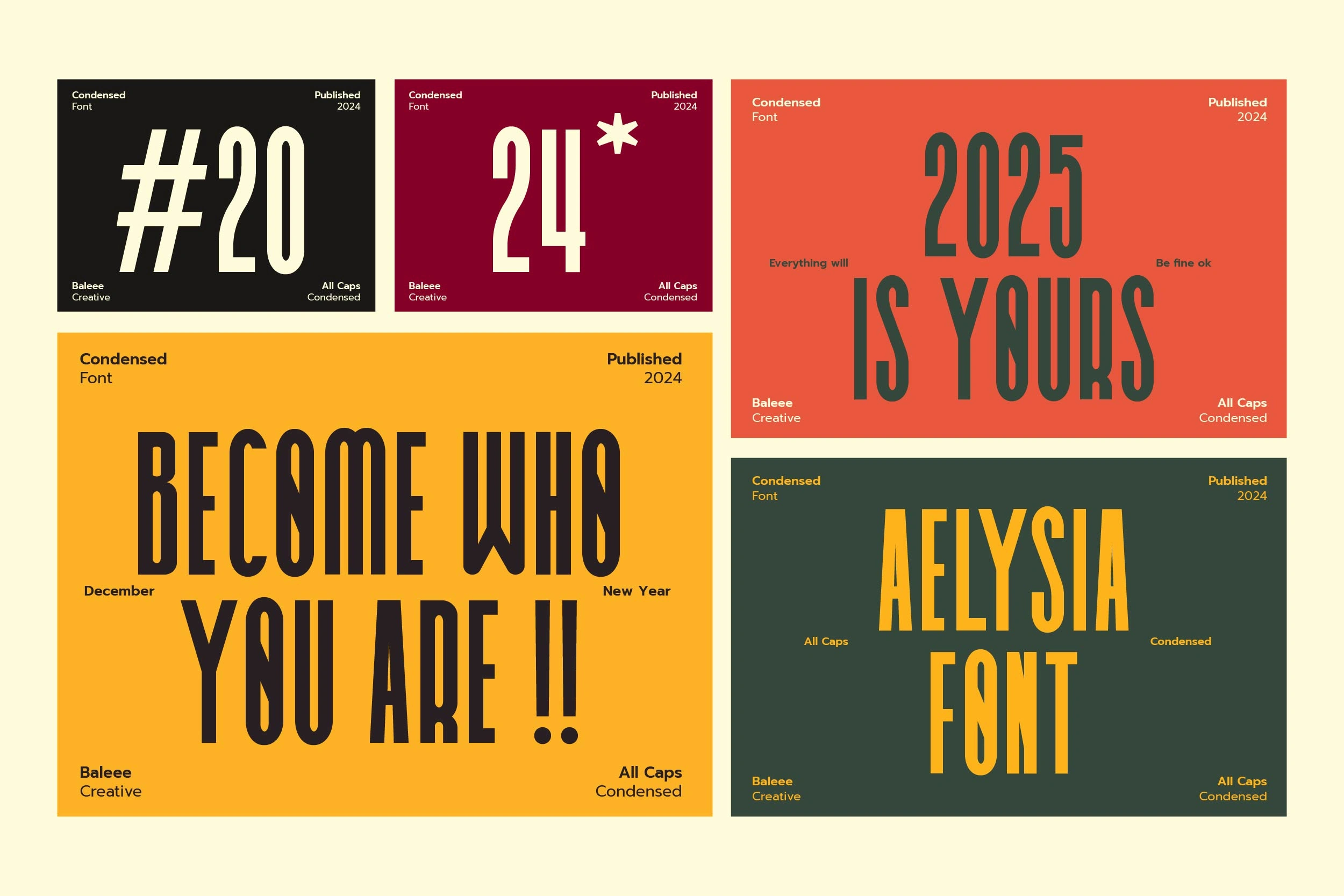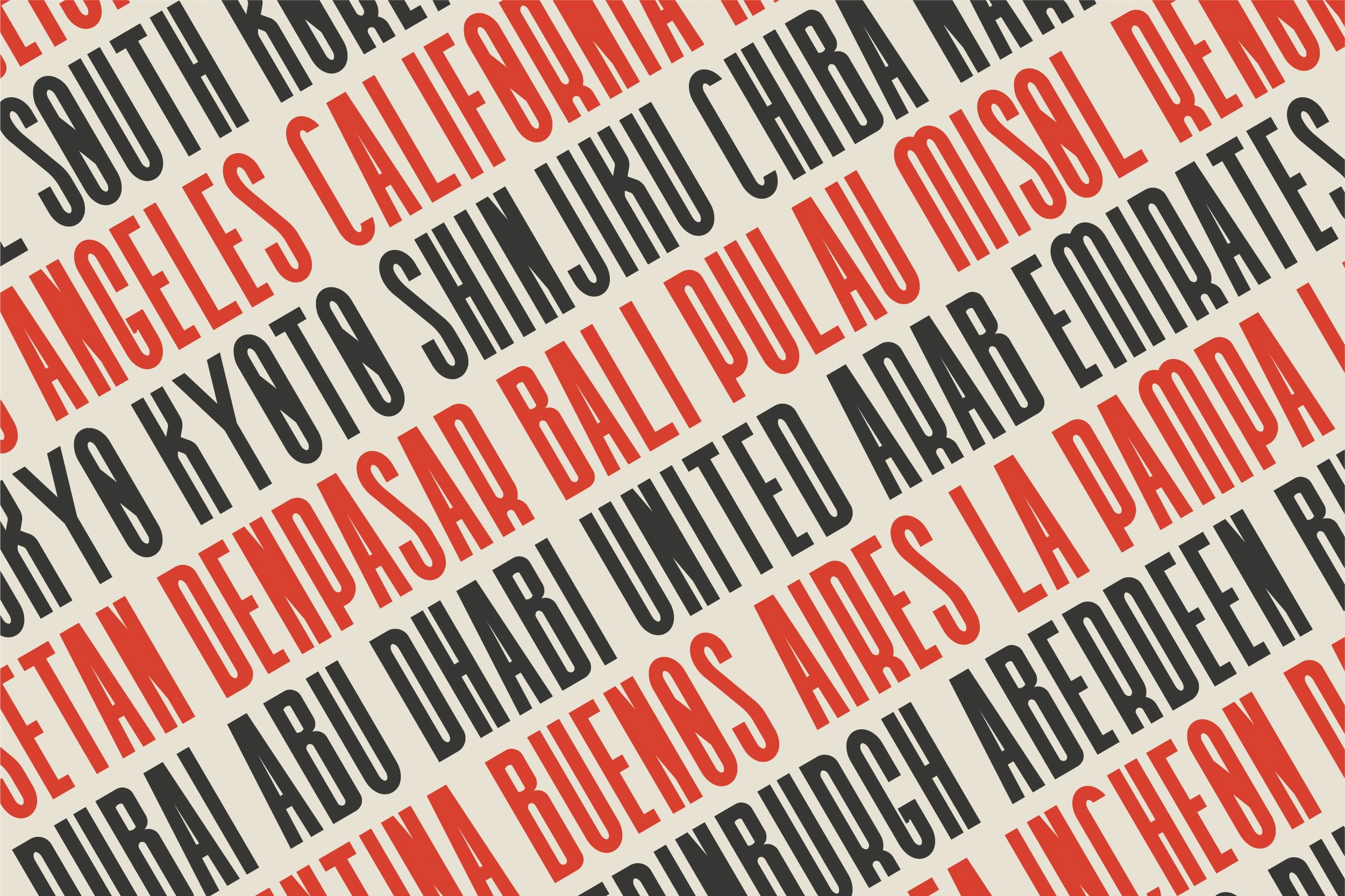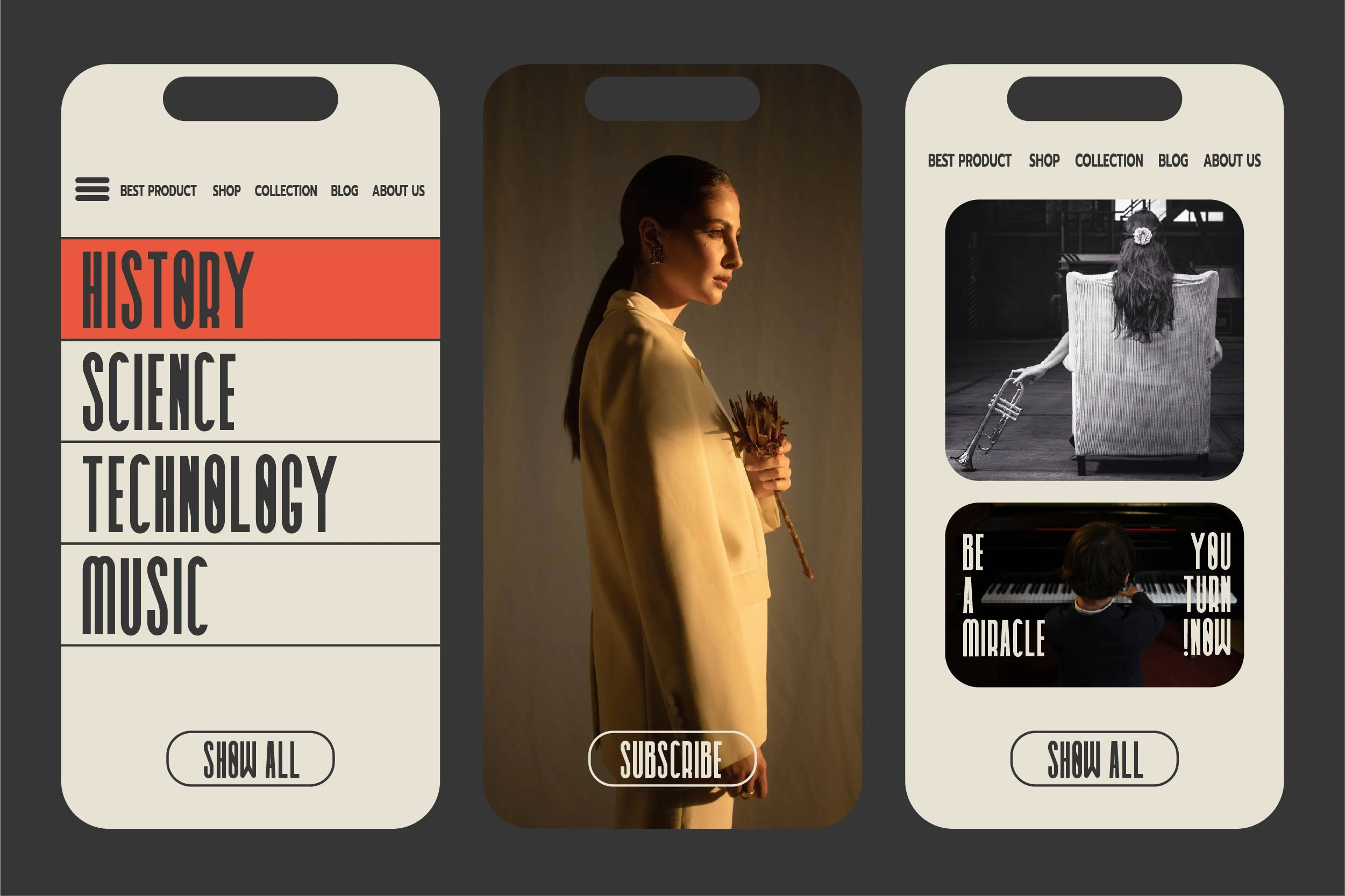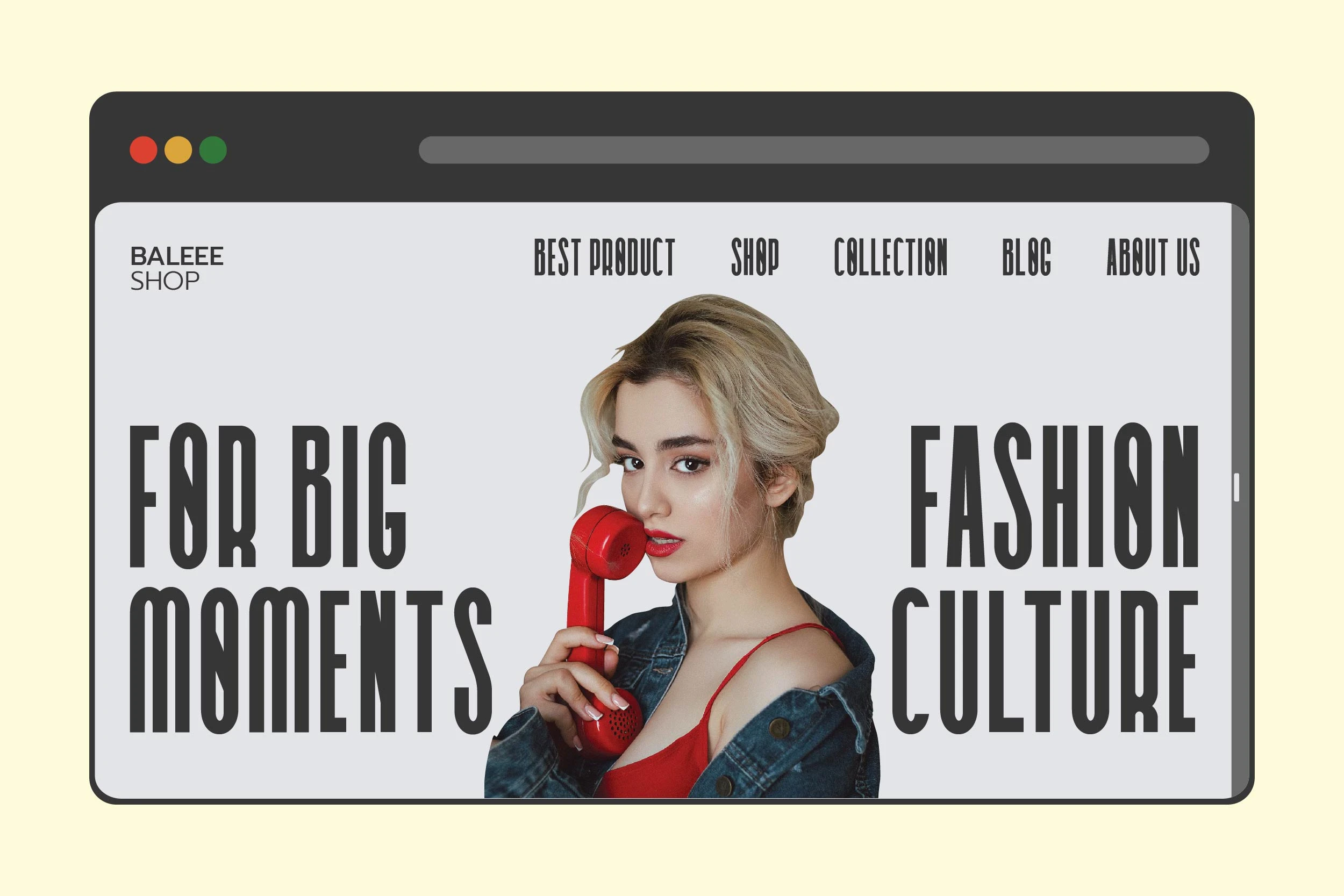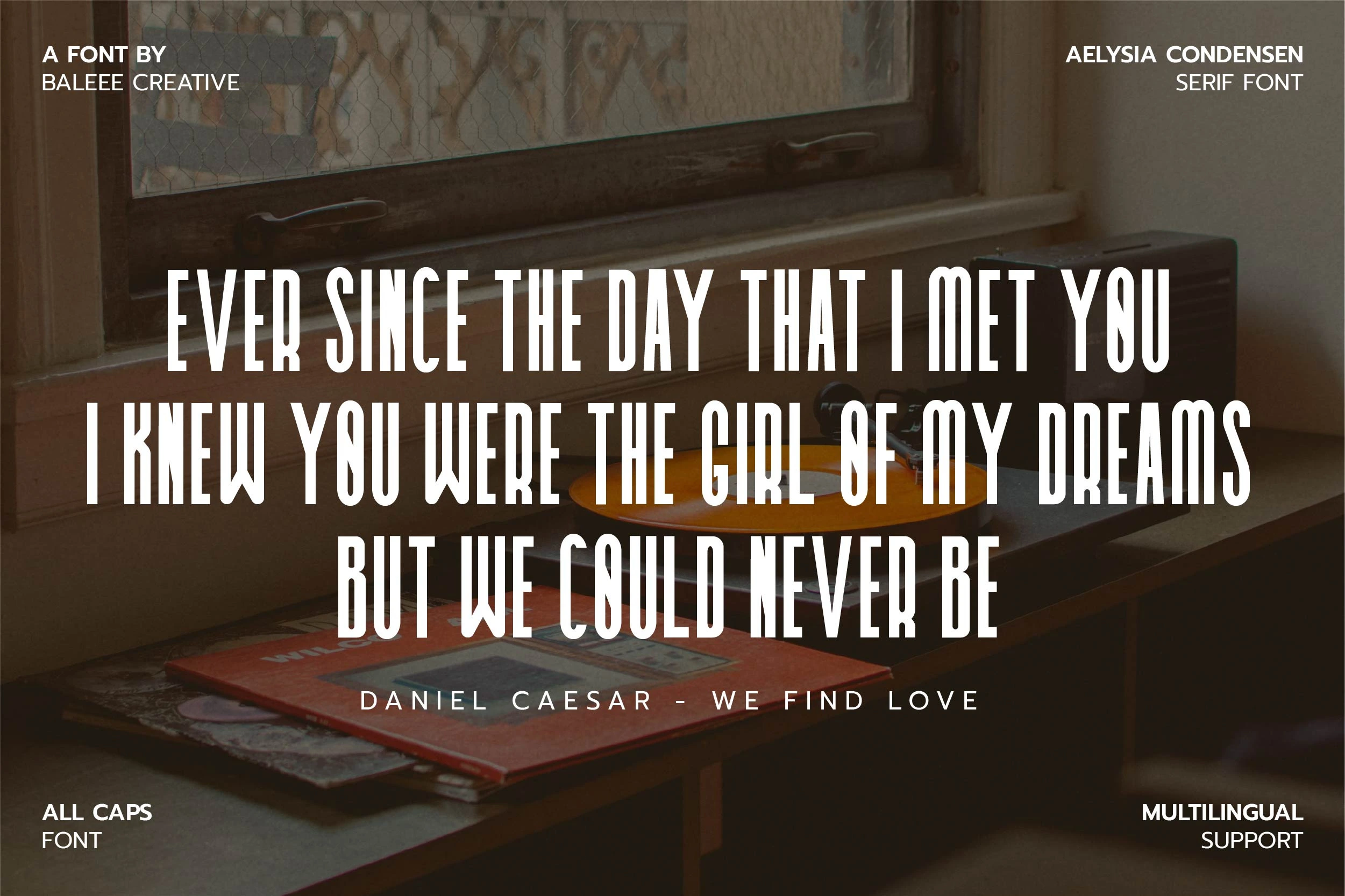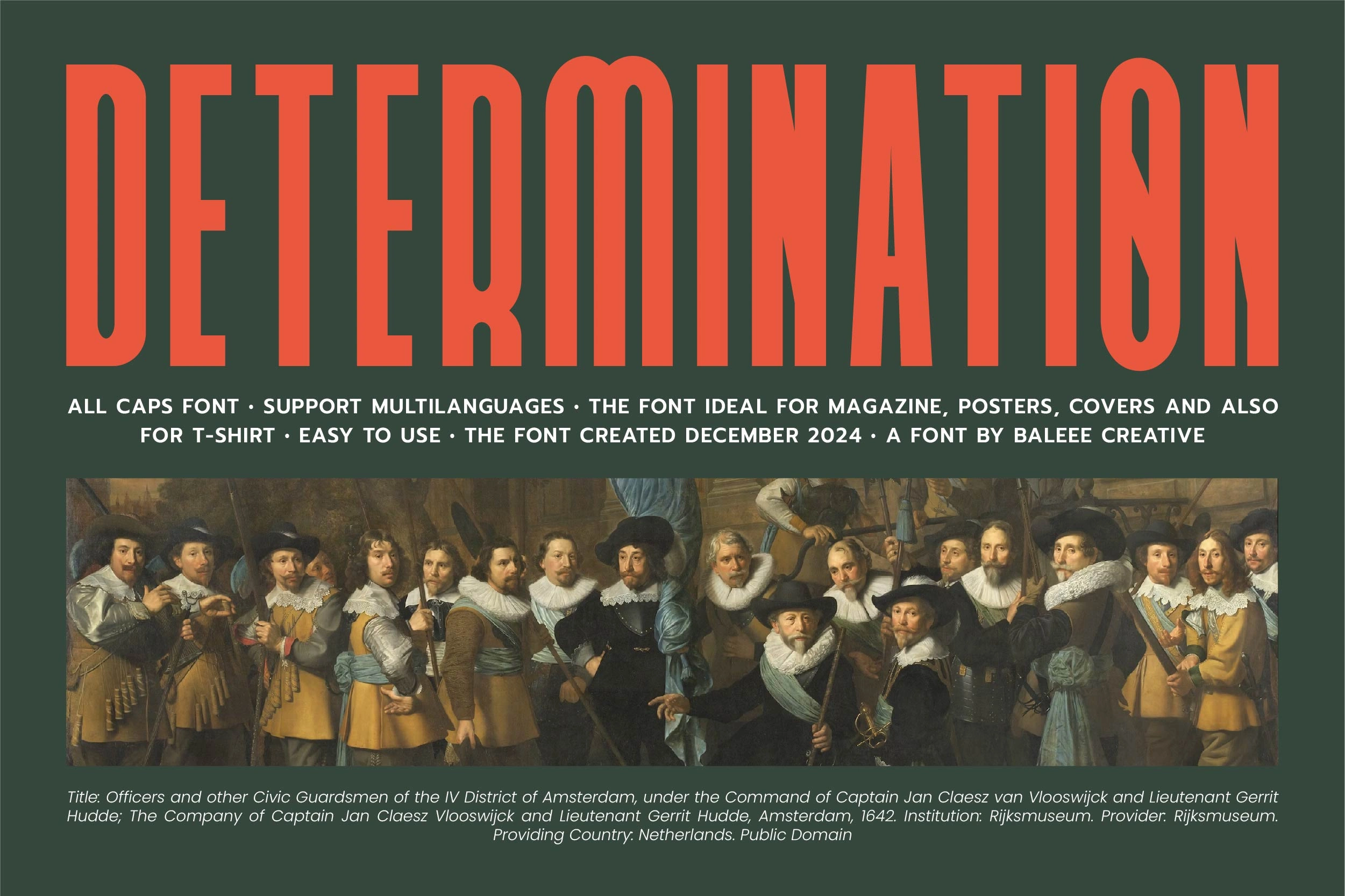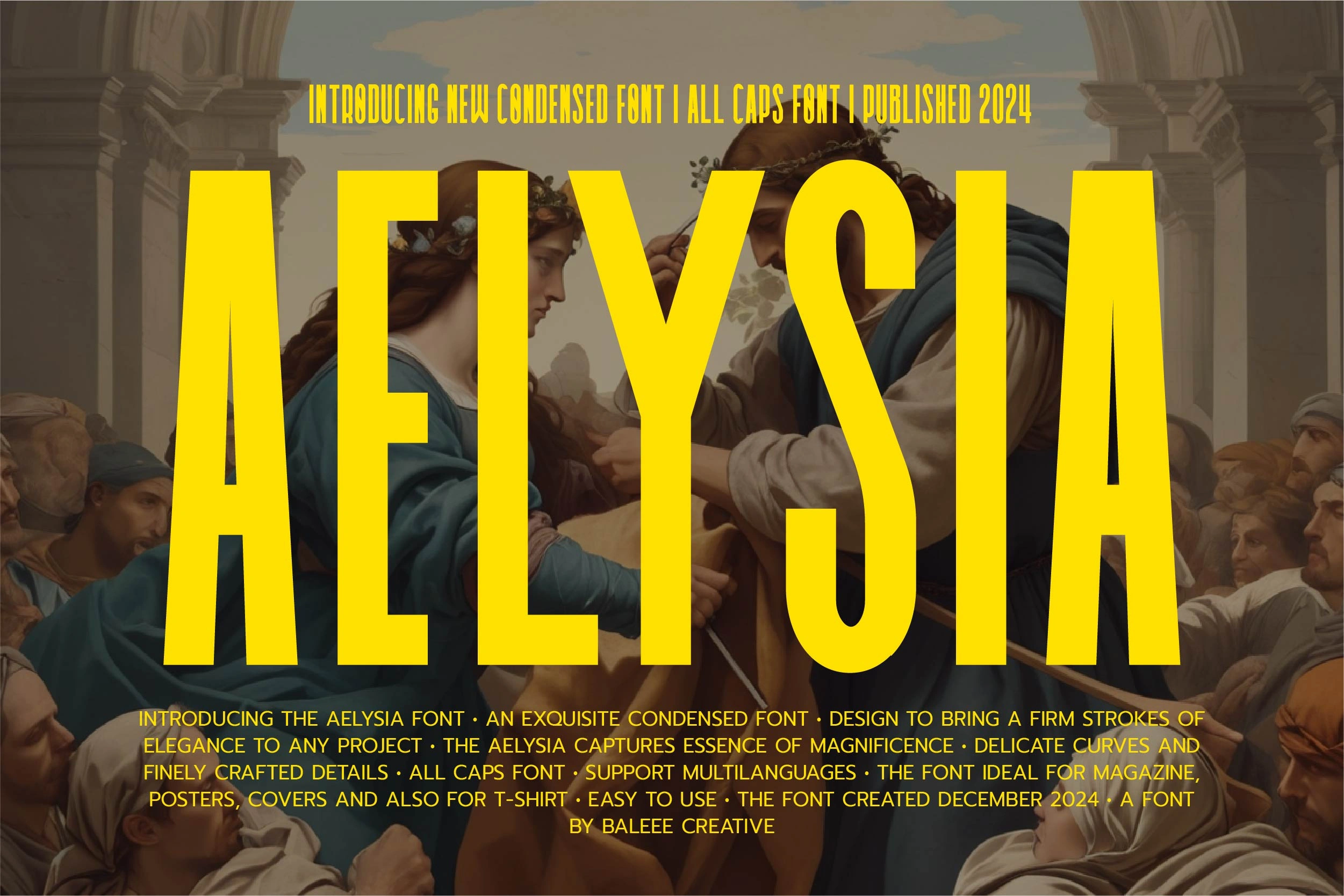
Aelysia - Condensed Font
A unique condensed font with a modern font feel. Includes all caps font and multilanguage to play with! This font has a unique look to the edges of the letters. This is how the font was created—to give it a distressed and authentic look!
AELYSIA FONT is perfect for: logos, branding, wedding invitations, digital template, business cards, greeting cards, posters, magazines, social media, planner prints and websites.